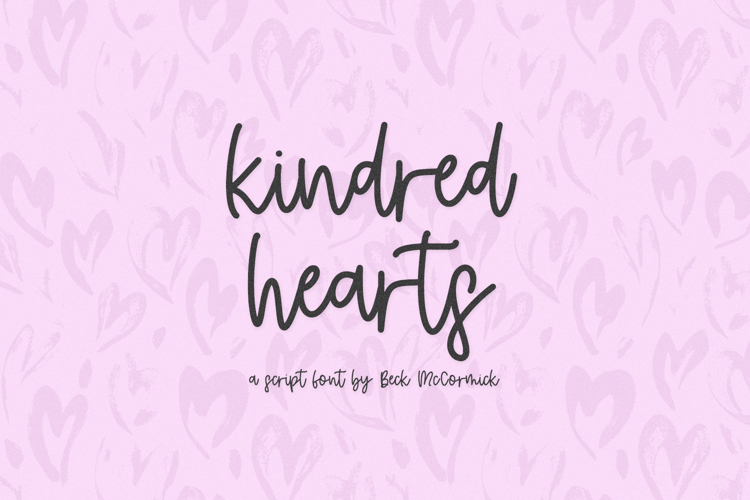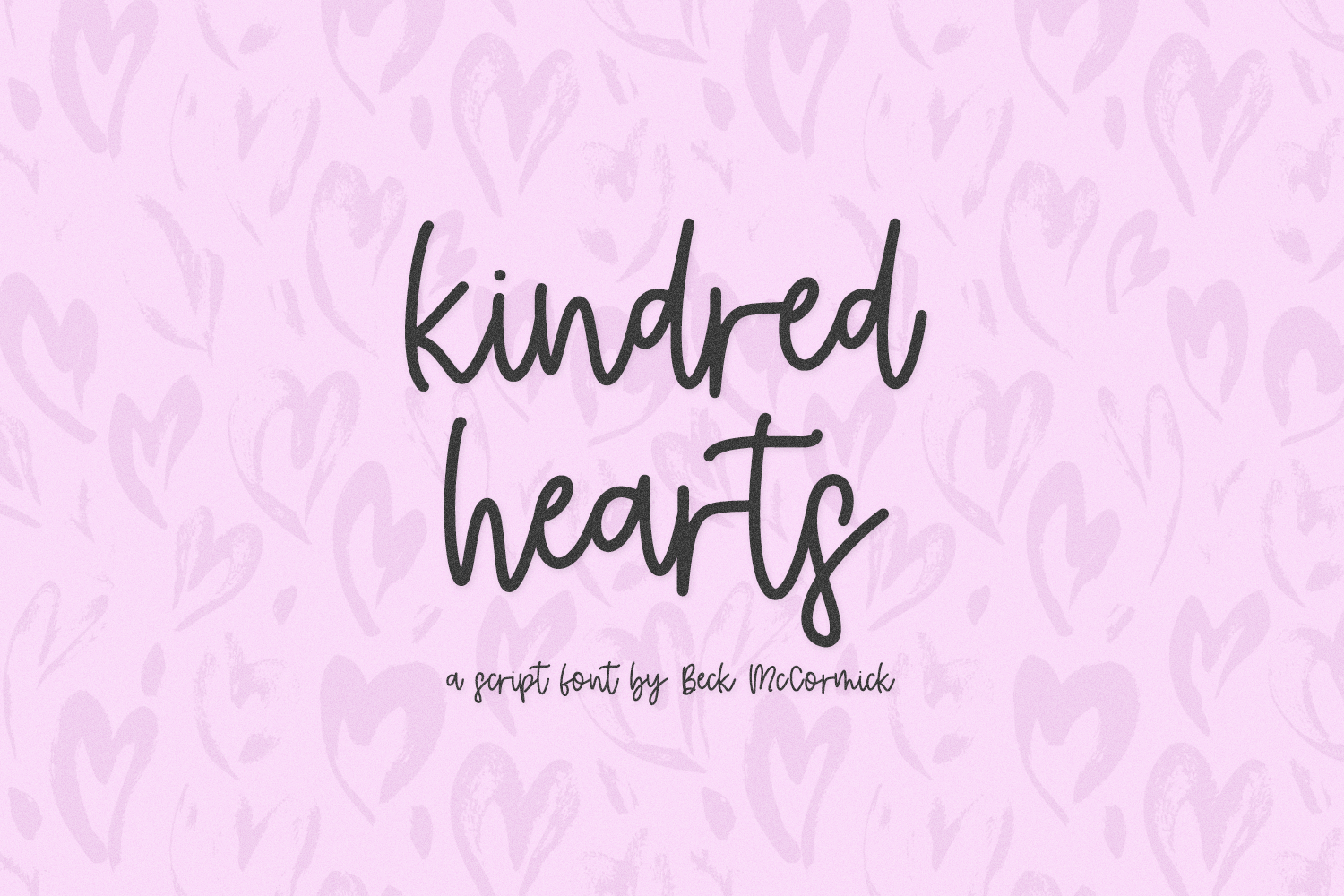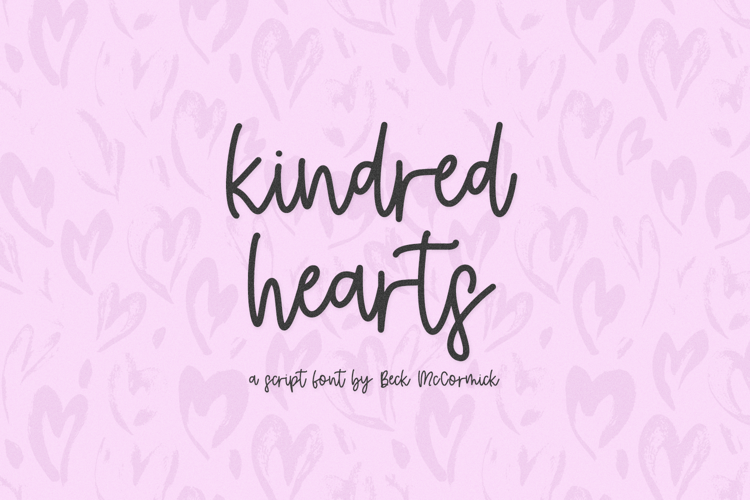
Kindred Hearts is a cute script font. This cursive font has clean lines with a handwritten feel, which makes it perfect for logos & branding, greeting cards, painted banners, digital planners, note-taking apps, Canva, Cricut projects, Silhouette projects, designing SVG files, laser cutting projects, & more.